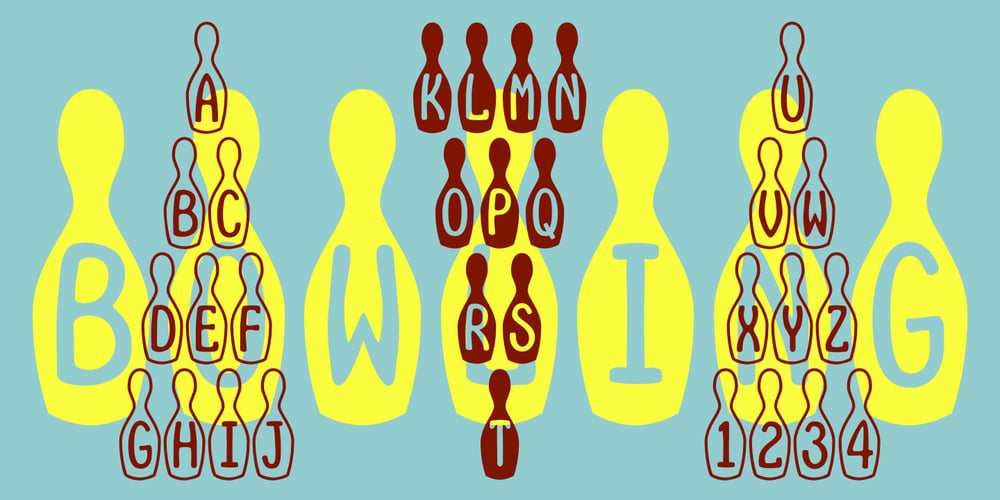
Bowling Font Family was designed by Robert Schenk and published by Ingrimayne Type. Bowling contains 1 styles and family package options. Bowling has letters on bowling pins. On the upper-case keys, the bowling pins are white with black letters and on the lower-case keys the pins are black with white letters. The lower-case letters can be colored and placed behind the upper-case letters to give two-color lettering. (The letters on the pins are from the typeface InsideLetters.)